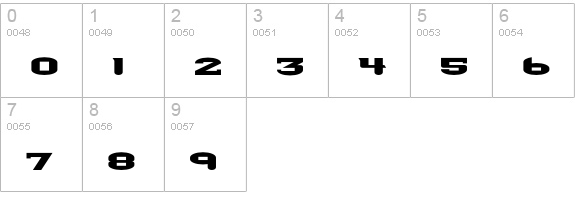
Werkman-Round Font Details
Werkman-Round font is a versatile typeface that exudes elegance and sophistication. Its beautifully rounded letterforms effortlessly blend classic and modern design elements, making it a perfect choice for a wide range of projects. With its gentle curves and smooth lines, Werkman-Round font brings a sense of warmth and friendliness to any text. Whether used for headlines, body text, or branding materials, this font adds a touch of personality and charm to your designs. One of the standout features of Werkman-Round font is its versatility. It adapts seamlessly to various design styles, from sleek and minimalist to bold and expressive. This flexibility allows designers to create unique and captivating compositions that leave a lasting impression. What makes Werkman-Round font even more remarkable is that it is available for free download at FontsMarket.com. This means that you can enhance your design projects without worrying about any additional cost. It's a valuable resource that every designer should have in their toolkit. The legibility of Werkman-Round font is exceptional, ensuring that your message is conveyed clearly and effectively. Its clean and well-defined letterforms make reading a pleasure, whether in print or on screen. Whether you're working on a branding project, a magazine layout, or a website design, Werkman-Round font has you covered. Its timeless appeal and effortless elegance will elevate your designs to new heights. In conclusion, Werkman-Round font is a stunning typeface that seamlessly combines classic and modern design elements. Its versatility, legibility, and elegance make it a must-have for any designer. And the best part? It's freely available to download at FontsMarket.com, allowing you to enhance your designs without any additional cost. So why wait? Grab Werkman-Round font today and elevate your designs to new levels of sophistication.